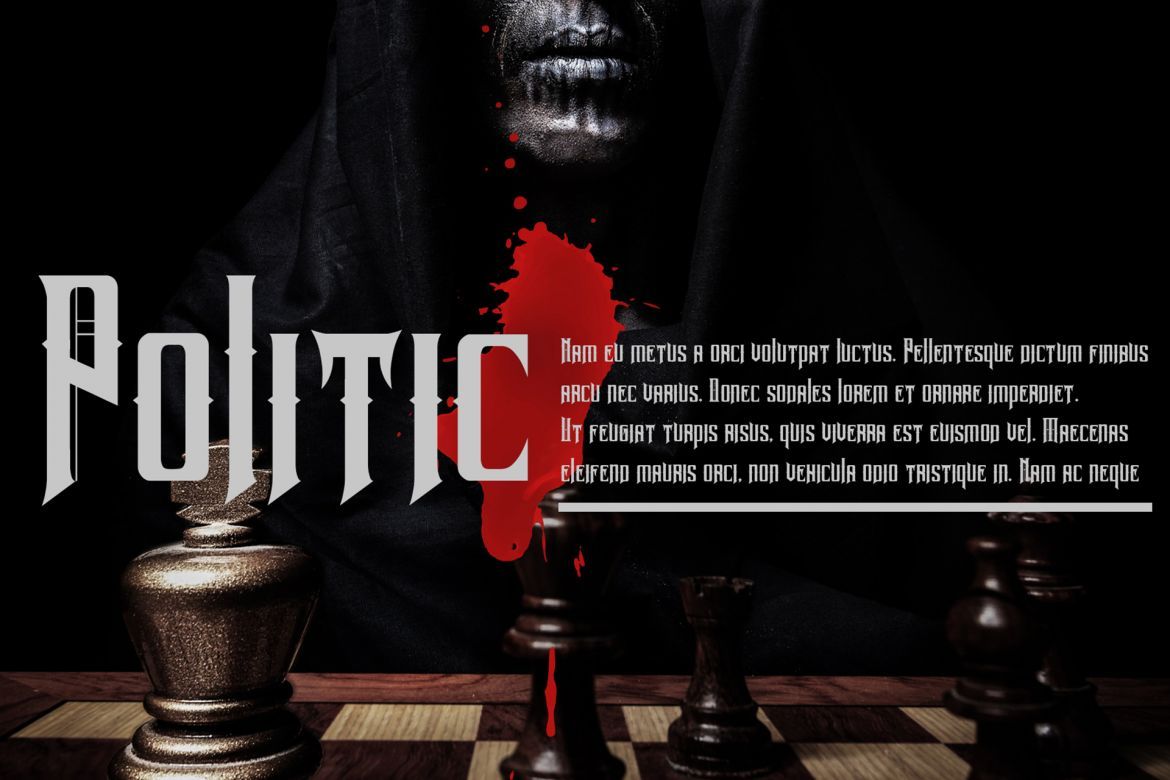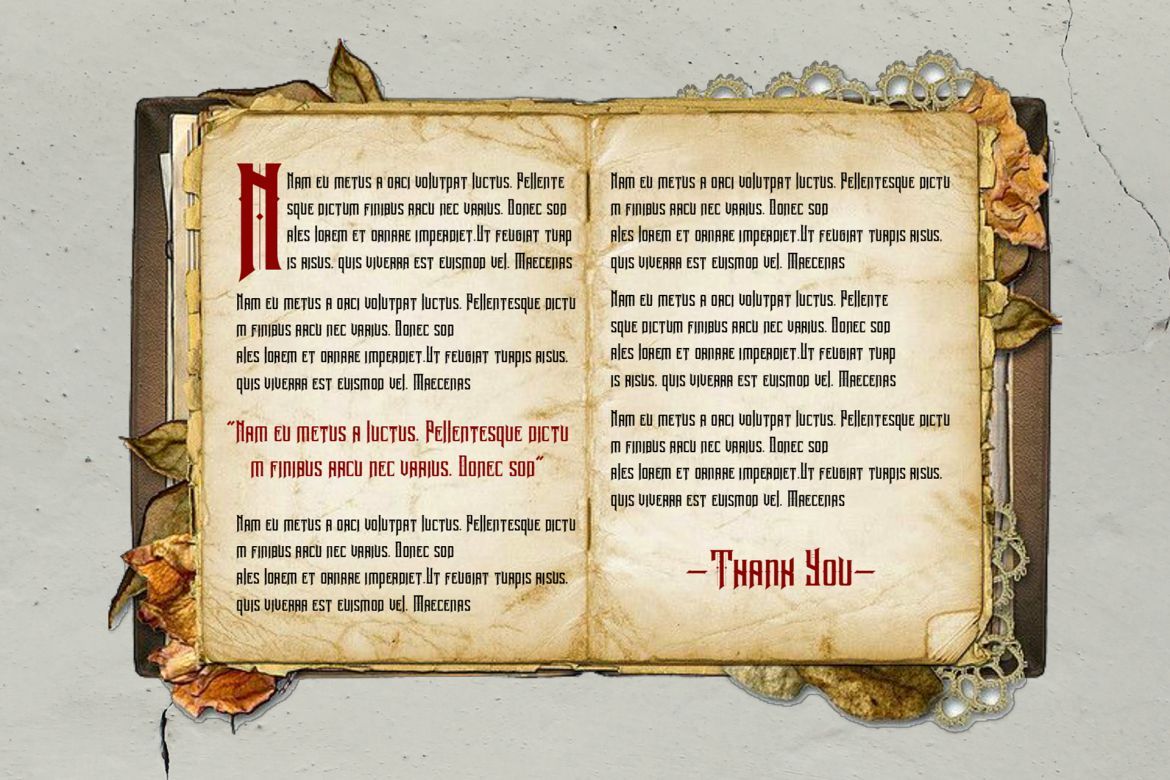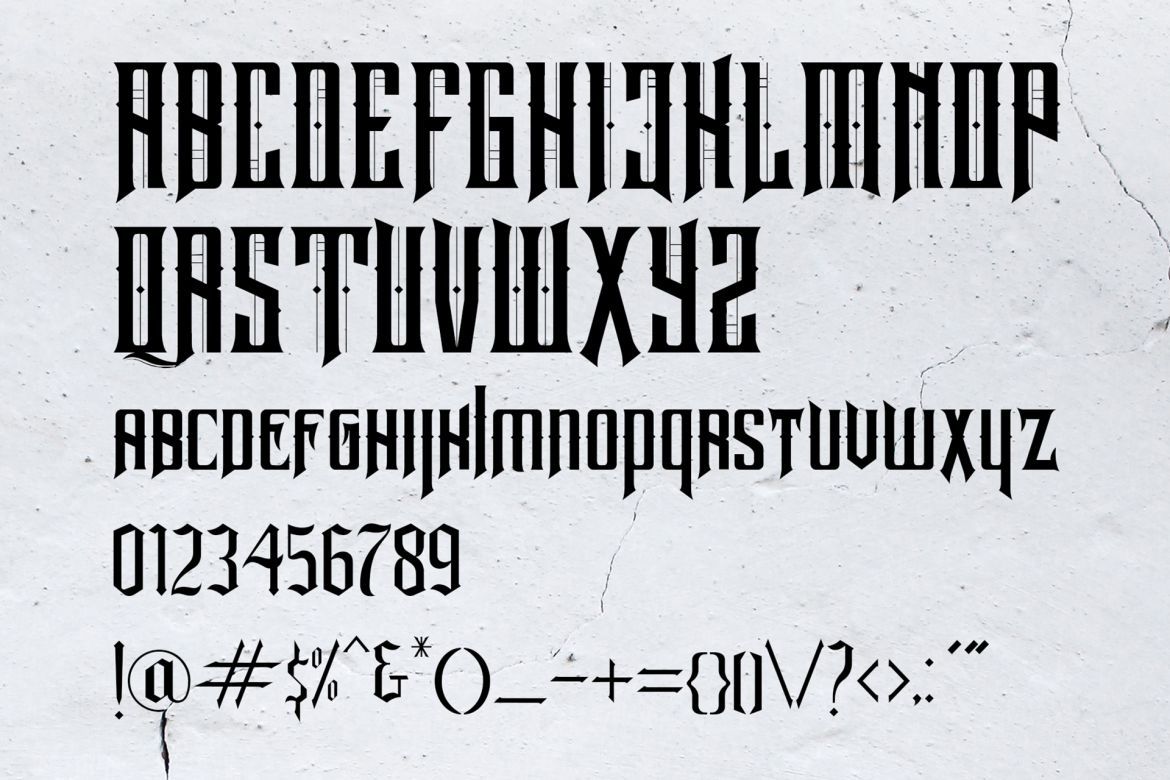
Neurotic Font
-- Horror / Vintage / Decorative --
Neurotic font is a sans font family Inspired by old time thriller movie poster, we try to make it more elegant and strong so it's can useful for any purpose. it's perfect for you to show your design or product in professional way.
Neurotic font is works great in any branding, logos, magazines, films, poster, flyer, sign board, magazine,etc
• perfect for horor design theme or vintage
• perfect for vintage logo
• unique style